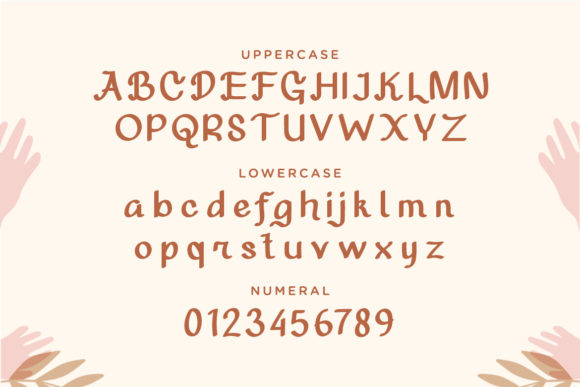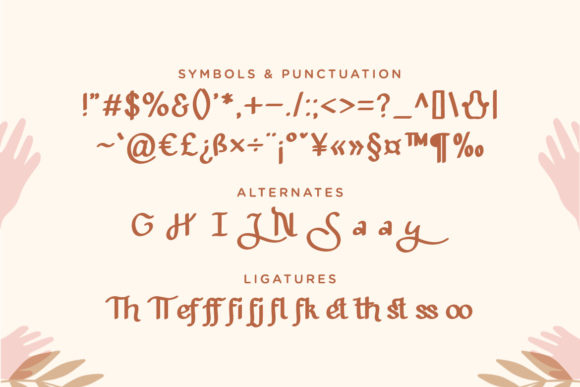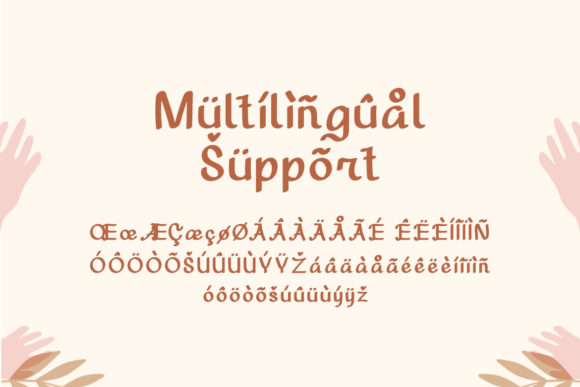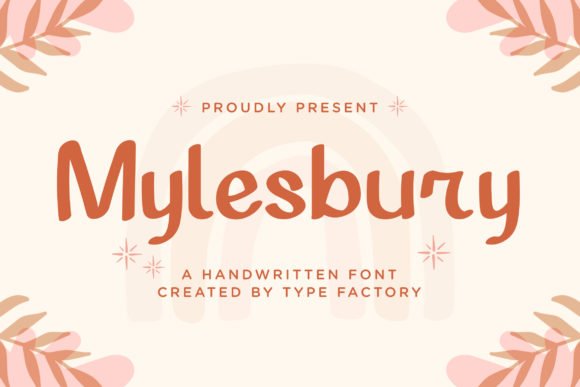
Introduction to Mylesbury Font
Mylesbury is a handwritten font that can be used for a host of different content needs and projects.
Create party invitations, restaurant promotions, printed quotes, standout packaging, or beautiful t-shirts You can even use it to create amazing headings, logos, menus, and social media graphics.
Key Features of Mylesbury Font